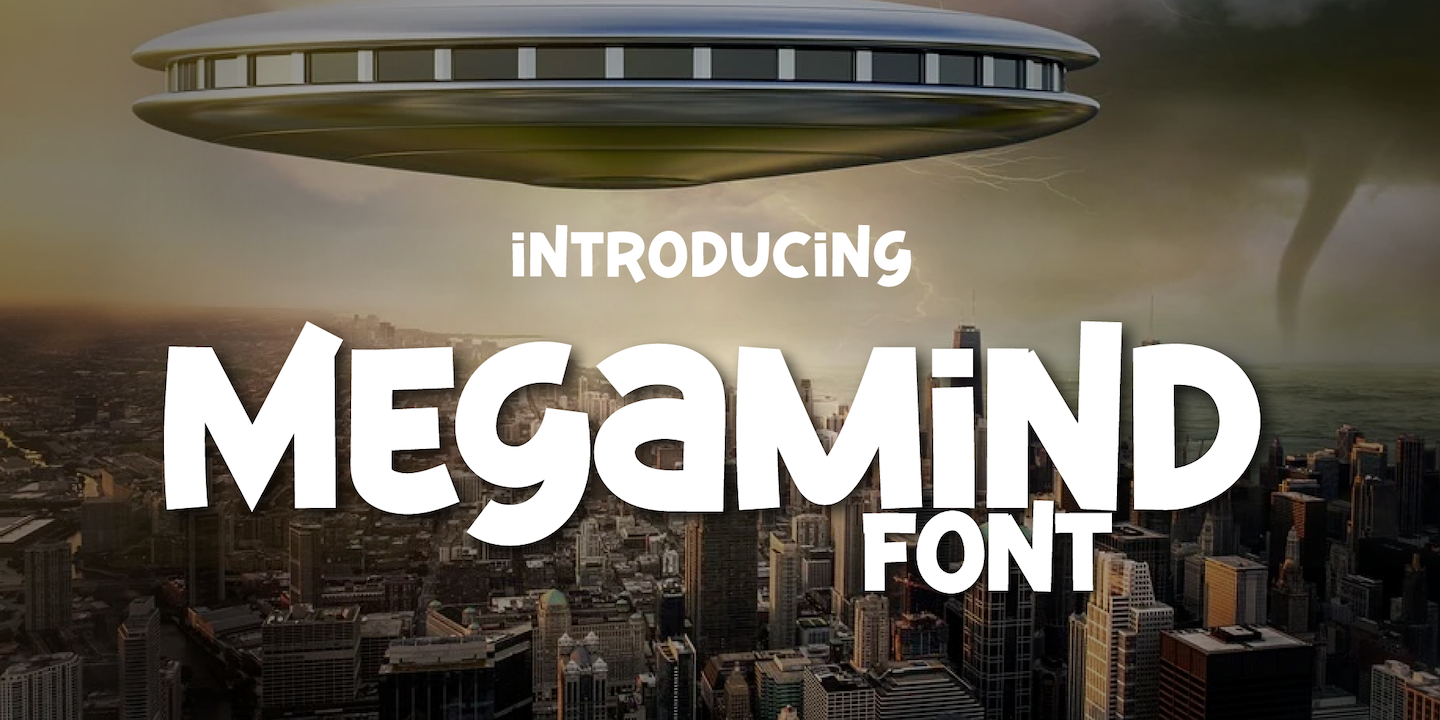
Megamind Font is ideal for superhero comic book titles, sci-fi movie promotions, futuristic gaming interfaces, advanced technology branding, genius inventor logos, mad scientist laboratories, intellectual think tank materials, brain training app designs, innovation conference signage, and brilliant projects that celebrate extraordinary intelligence and superhuman mental prowess with commanding presence and futuristic sophistication.
What makes Megamind Font so exciting is its powerful embodiment of superior intellect through dramatically scaled letterforms that project genius-level intelligence and technological mastery. This typeface captures the essence of superhuman mental capacity and scientific brilliance, featuring bold proportions and cerebral details that suggest advanced neural networks while maintaining excellent readability for contemporary sci-fi applications requiring both intellectual authority and visual impact.
Megamind Font family encompasses multiple intellectual variations: Regular, Bold, Light, Genius, Brilliant, Superior, Mind, and Cerebral versions. Each style maintains the font's inherent intellectual character while offering different levels of mental intensity and futuristic appeal, providing designers with comprehensive tools for creating authentic genius aesthetics that resonate with audiences seeking intellectual stimulation and superhuman intelligence themes.
The commanding appeal of Megamind Font Free Download makes it exceptionally valuable for entertainment and technology industries promoting intellectual excellence and futuristic innovation. This font successfully communicates genius-level intelligence and technological supremacy, making it perfect for brands that want to project superior mental capacity and attract audiences who appreciate intellectual prowess. Its powerful character works effectively across both digital sci-fi platforms and printed innovation materials, while its distinctive genius-inspired design creates immediate recognition among audiences who value extraordinary intelligence and futuristic technological advancement.